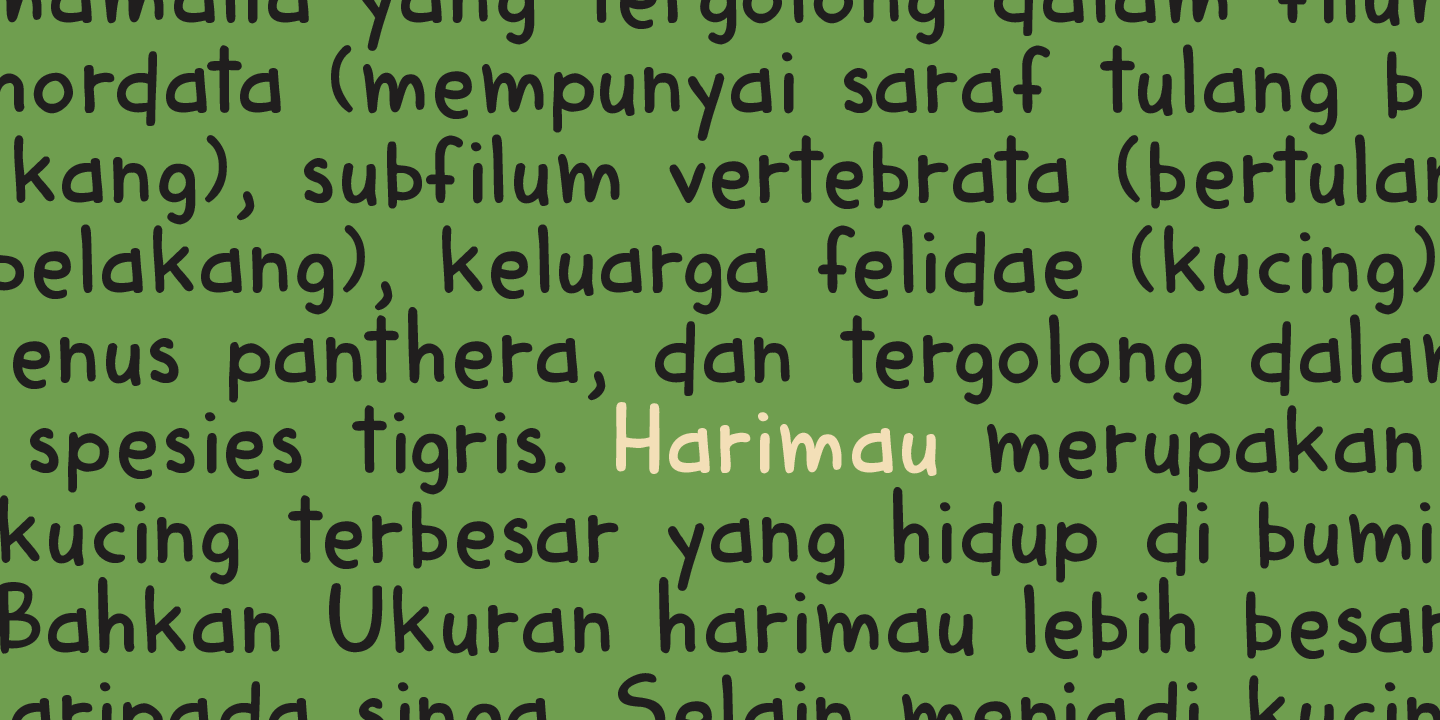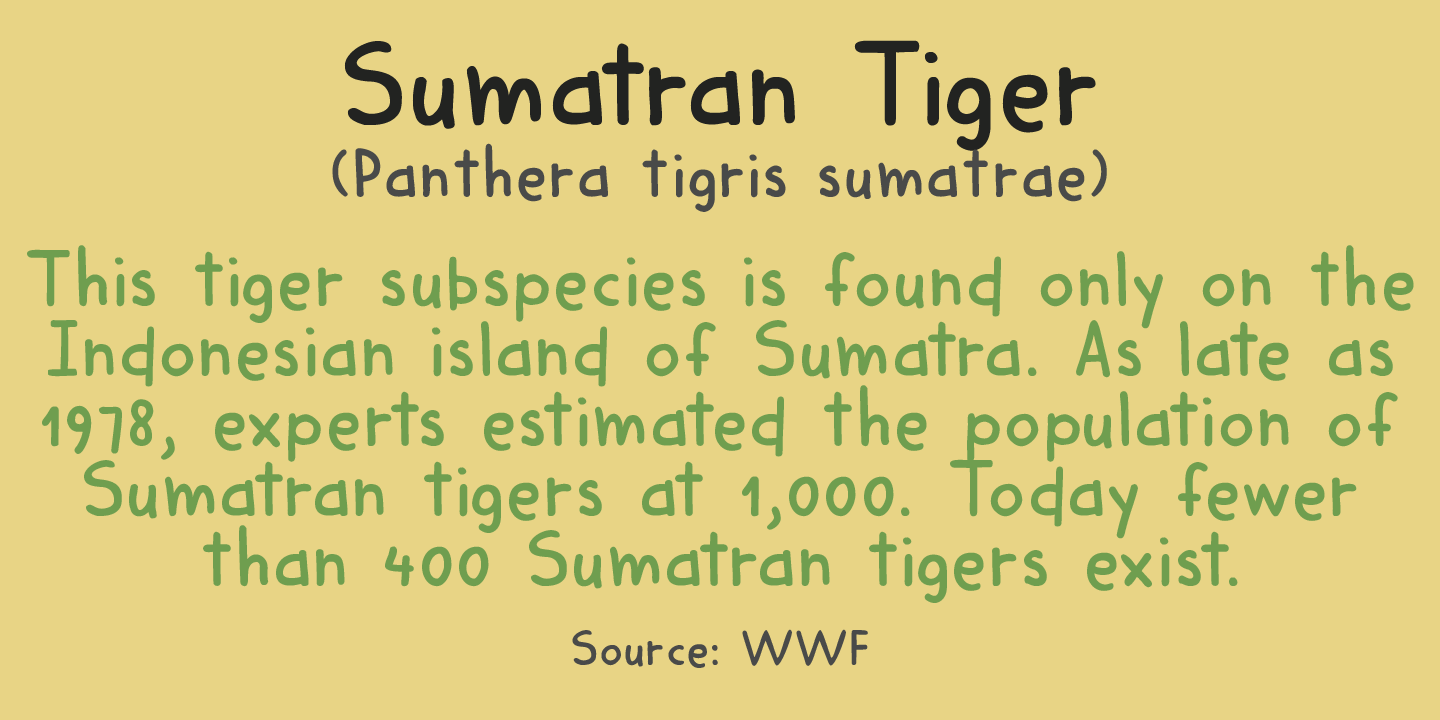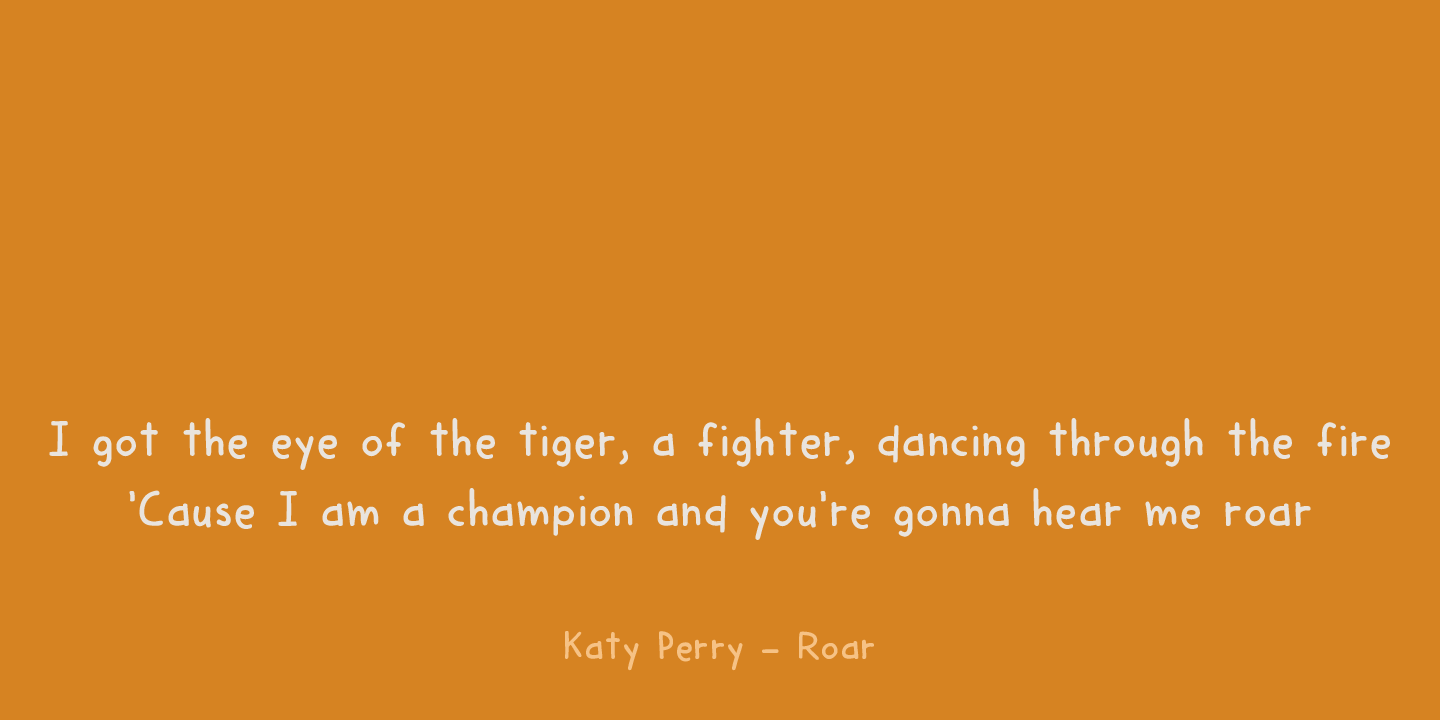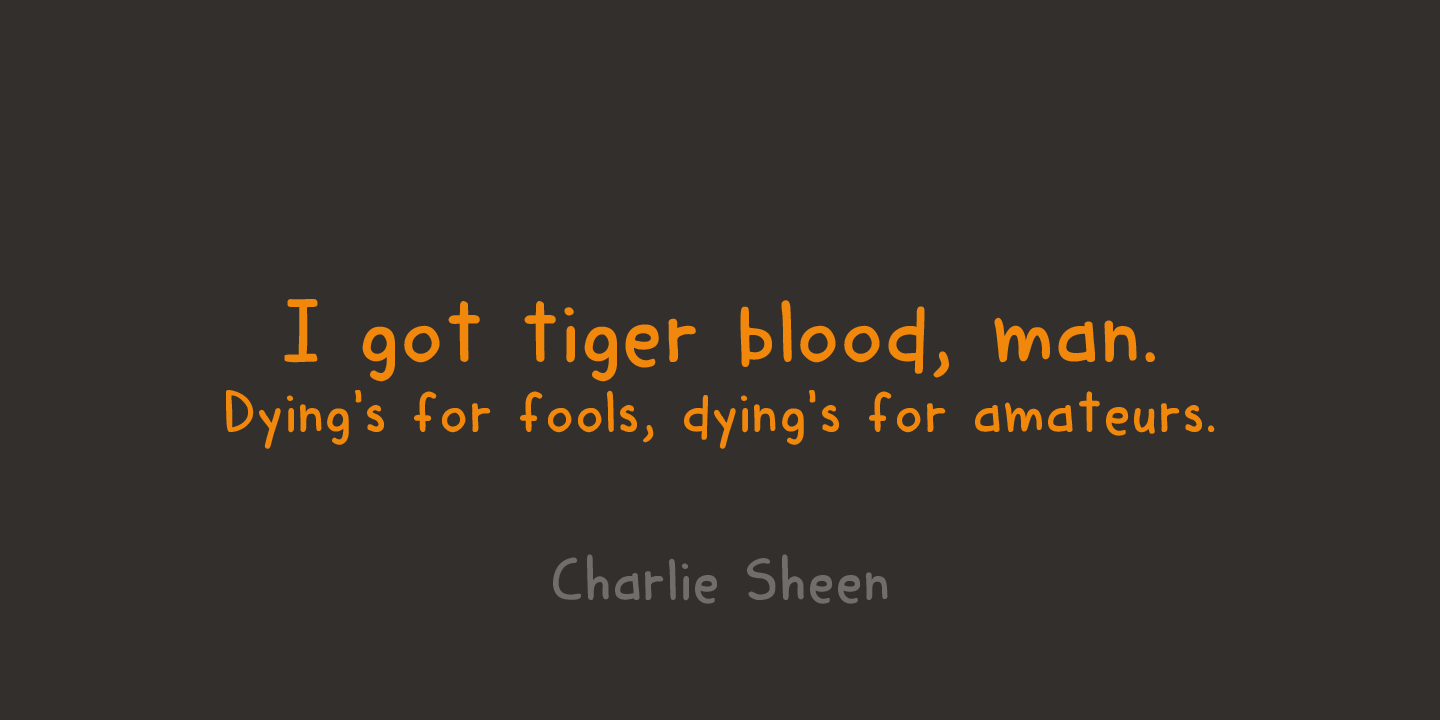
Harimau Dua
A while back I created a nice font called Harimau. It is a childish font, with a happy feel to it. Harimau had some unusual glyphs, most notably the ?g? and the ?j?, which, for some designers, were a little too unusual. Therefore I have created a new font based on the old Harimau: it is similar, but comes with ?normal? glyphs.